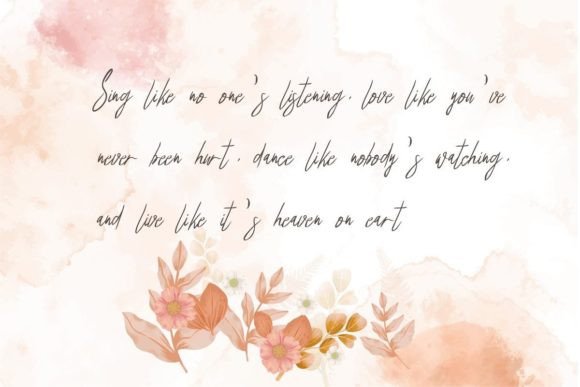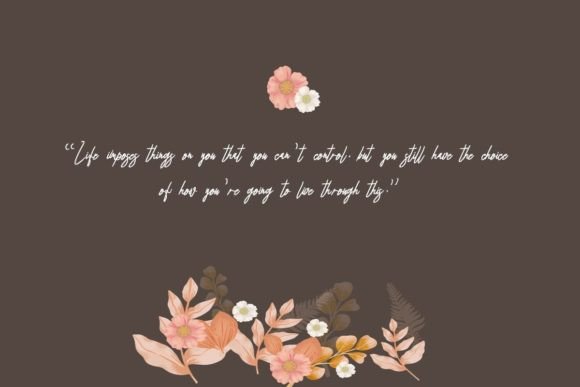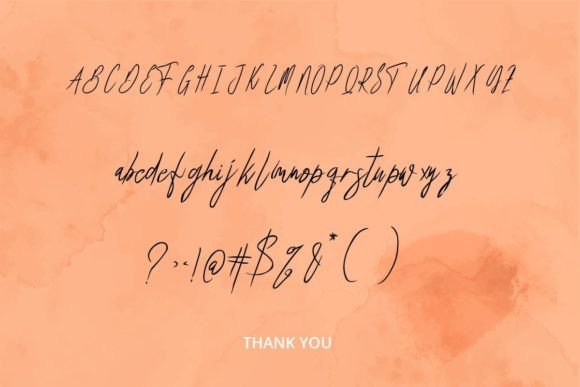
Introducing Darka Font: Elevate Your Design with Modern Elegance
In the world of typography, a new addition has emerged that’s making waves among designers and crafters alike. Say hello to Darka Font, a brand new handwriting font that’s modern, minimal, and exudes chic elegance. Whether you’re working on a website, wedding stationery, modern logos, personal branding, or social media quotes, Darka Font is the perfect choice to elevate your design.
What Makes Darka Font Special?
Darka Font is a unique and stylish typeface that adds a touch of sophistication to any design project. Its modern and minimal aesthetic makes it versatile and suitable for a wide range of applications. Here are some key features that make Darka Font stand out:
- Modern and Minimal: Darka Font boasts a clean and contemporary design that’s perfect for designers who want to create a lasting impression.
- Chic Elegance: The font’s elegant curves and lines add a touch of luxury to any design, making it ideal for high-end branding and wedding stationery.
- Versatile: Darka Font can be used for a variety of design projects, from websites and social media quotes to logos and personal branding.
- Perfect for Signature Logos: The font is particularly well-suited for signature logos that use the same first letter in both names, making it a great choice for monogram logos.
Use Cases for Darka Font
Darka Font is an incredibly versatile typeface that can be used in a variety of design projects. Here are some use cases to get you started:
- Wedding Stationery: Add a touch of elegance to wedding invitations, save-the-date cards, and other wedding stationery with Darka Font.
- Websites: Use Darka Font to create a modern and sophisticated website that reflects your brand’s personality.
- Modern Logos: Create a lasting impression with a custom logo designed using Darka Font.
- Personal Branding: Establish your personal brand with a unique and stylish font that’s perfect for business cards, resumes, and more.
- Social Media Quotes: Stand out on social media with stylish and elegant quotes designed using Darka Font.
Why Choose Darka Font?
With so many fonts available, why choose Darka Font? Here are a few reasons why designers and crafters are falling in love with this modern typeface:
- Unique and Stylish: Darka Font is a one-of-a-kind typeface that’s sure to make your design stand out.
- Elegant and Sophisticated: The font’s elegant curves and lines add a touch of luxury to any design.
- Versatile: Darka Font can be used for a wide range of design projects, making it a great addition to any designer’s toolkit.
- Easy to Read: The font is clear and easy to read, making it perfect for body text and headlines.
In conclusion, Darka Font is a modern and minimal typeface that’s perfect for designers and crafters who want to add a touch of elegance to their design projects. With its versatile design, chic aesthetic, and ease of use, Darka Font is sure to become a favorite among designers. Whether you’re working on a website, wedding stationery, or personal branding, Darka Font is the perfect choice to elevate your design and make a lasting impression.